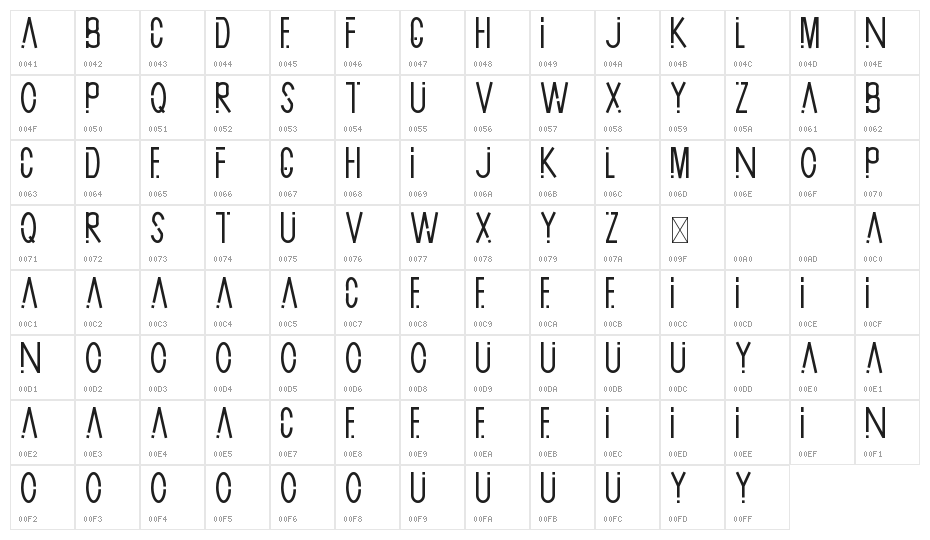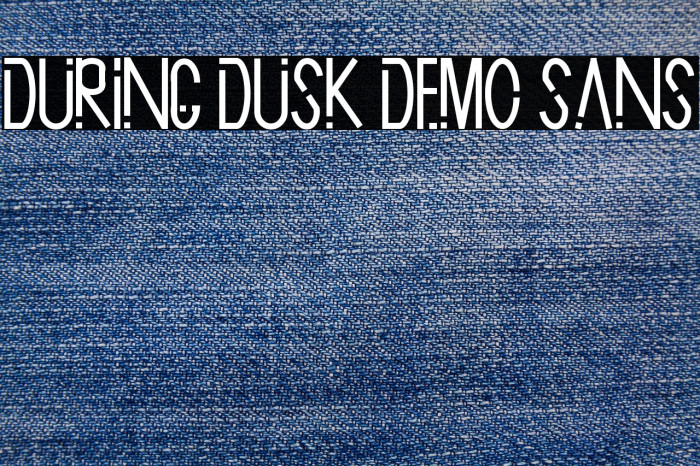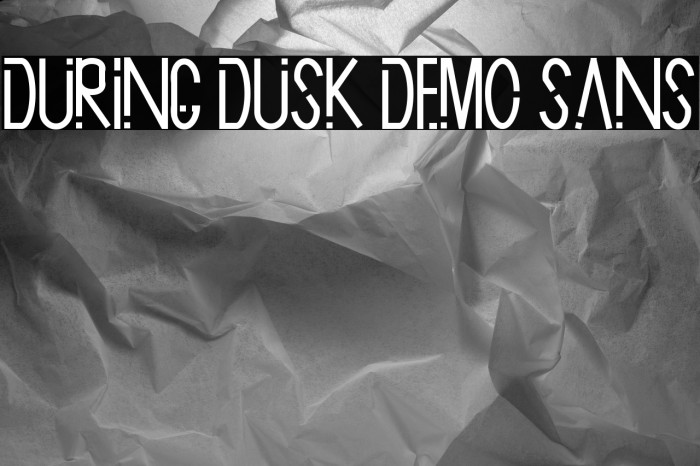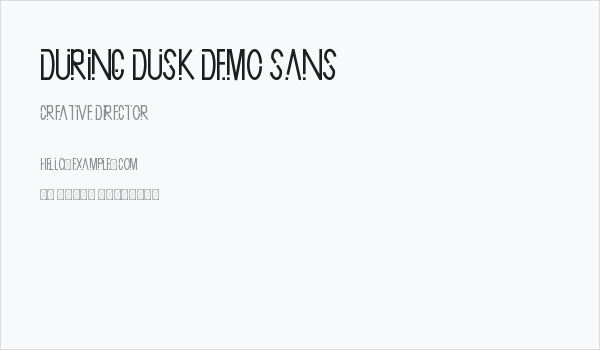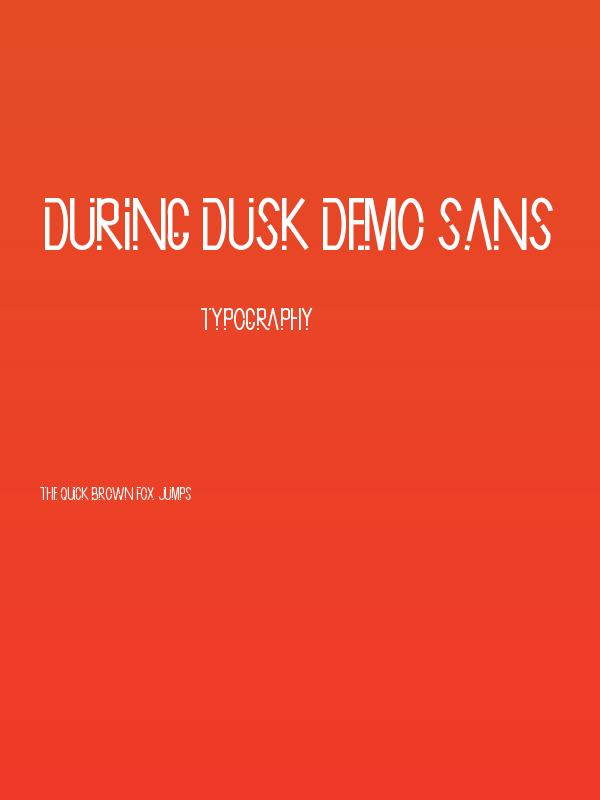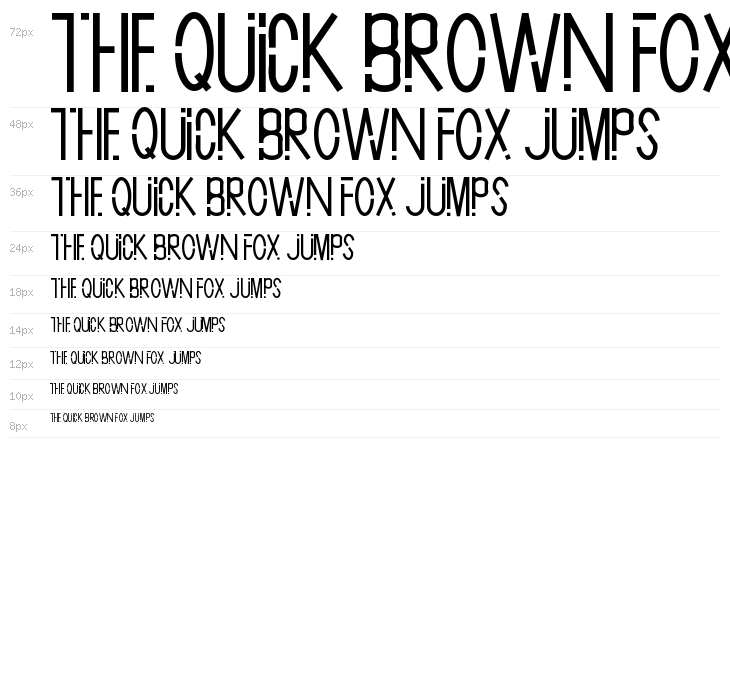
During Dusk Demo Sans Font
During Dusk Demo Sans Description
This font features a bold and striking design with a modern and geometric aesthetic. The characters are tall and narrow, with a consistent stroke width that gives a clean and structured appearance. The uppercase letters are particularly distinctive, with unique angular elements that add a touch of sophistication. The font maintains a uniform height across all characters, enhancing its orderly and cohesive look. The spacing between characters is tight, contributing to its compact and efficient style. This font's design is ideal for making a strong visual impact, suitable for contemporary and innovative projects.
Proposed ProjectsIdeal for branding, advertising, posters, and digital media where a modern and impactful look is desired.